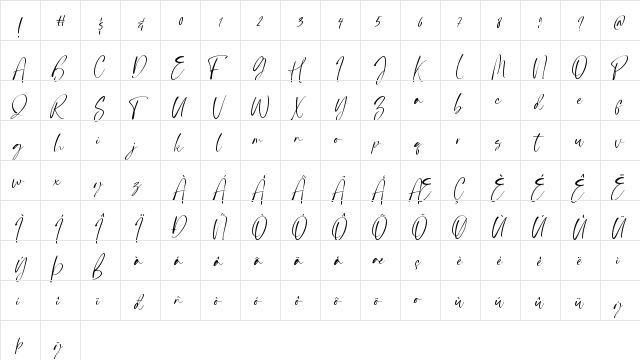
Handsnow Regular
| Designer | Muhamad Yusron Billah |
Design Context for Handsnow Typeface
Handsnow brings a calligraphic fluidity to the page — its connecting strokes and expressive curves give it an unmistakably human quality.